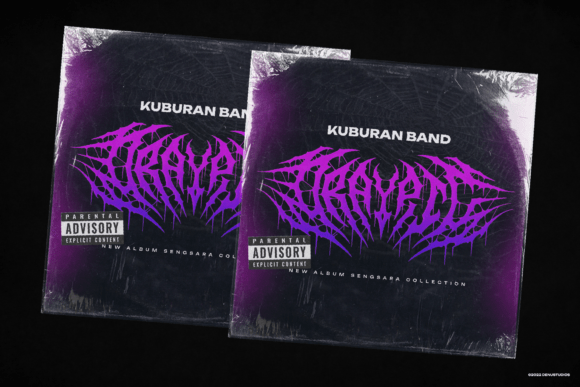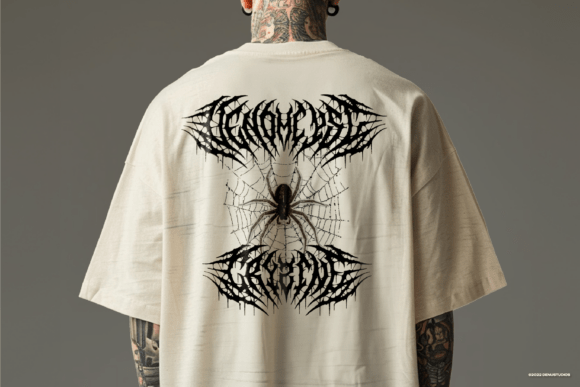
Araknix Font
Araknix is a sinister, web-inspired death metal font that screams intensity and horror. With its chaotic, dripping forms and spiked texture, this font is perfect for band logos, underground music posters, metal album covers, and dark-themed merchandise. Packed with 182 glyphs and 5 style alternates, Araknix offers unlimited creative power for your heaviest projects.